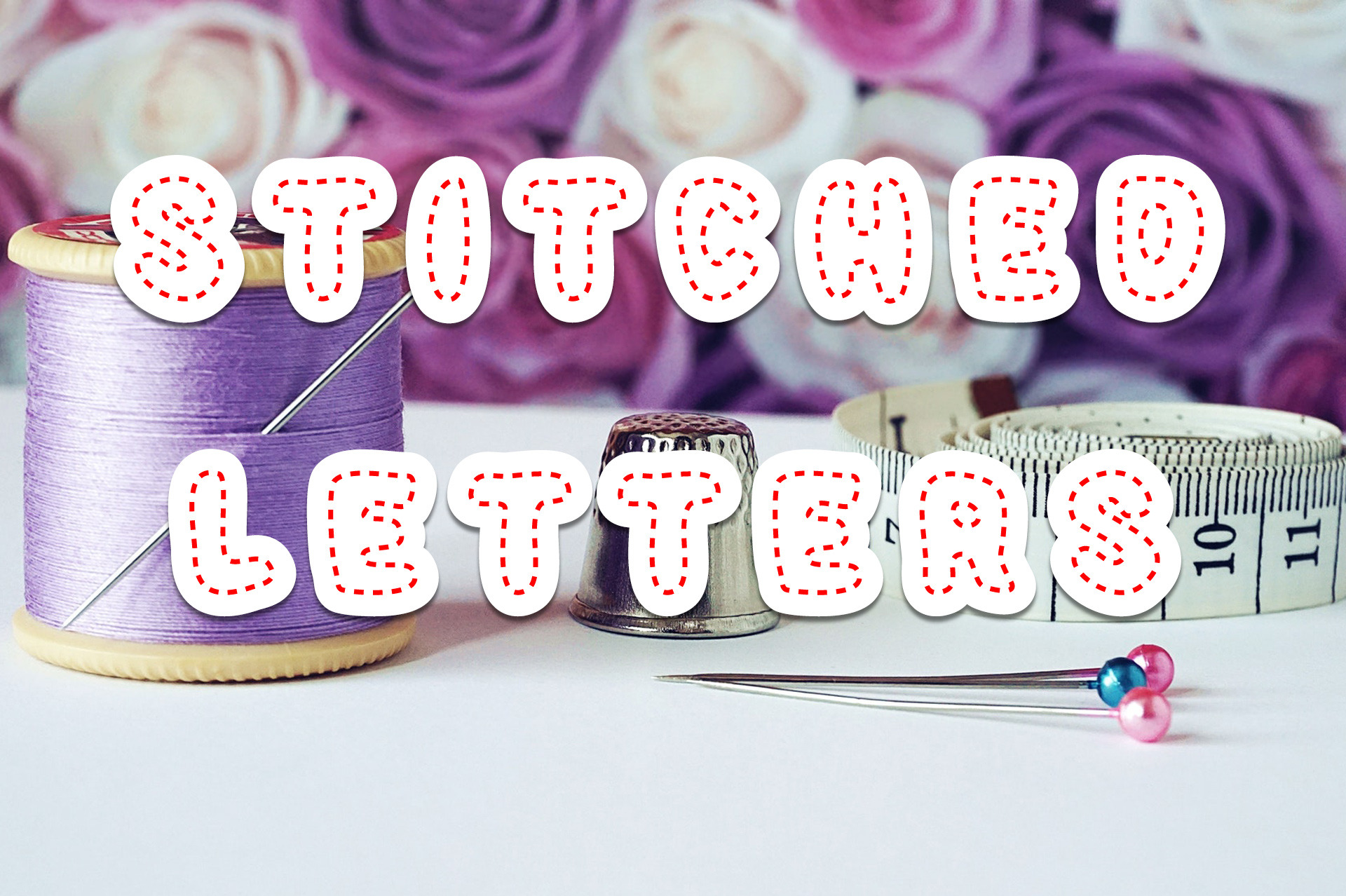
Stitched Letters SVG Font
Stitched Letters SVG Font.
Stitched Letters is an incredibly unique and simple decorative font. Get inspired by its incredibly versatile style and use it to create lovely designs!
Great for posters, embroidery craft, invitations, art and crafts, T-Shirts and more.